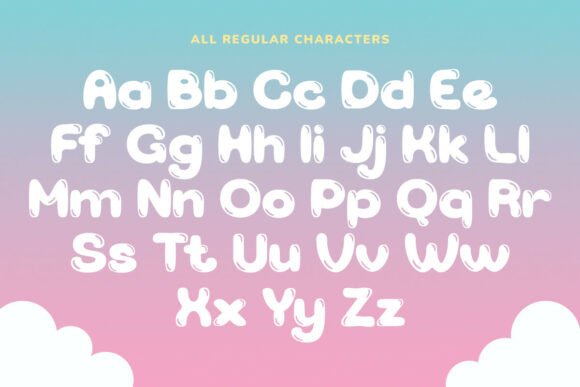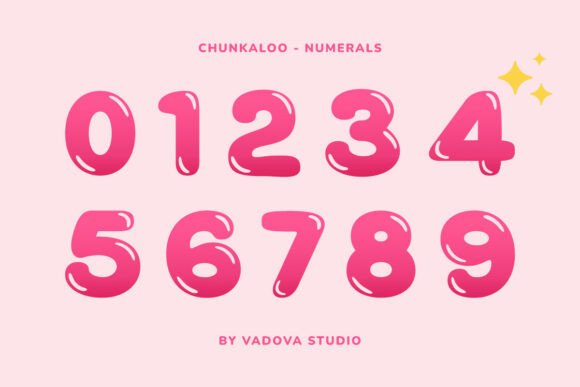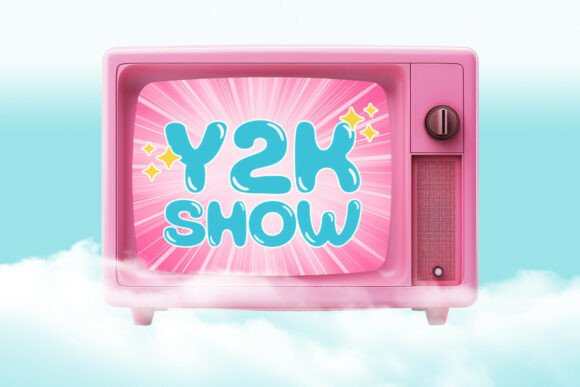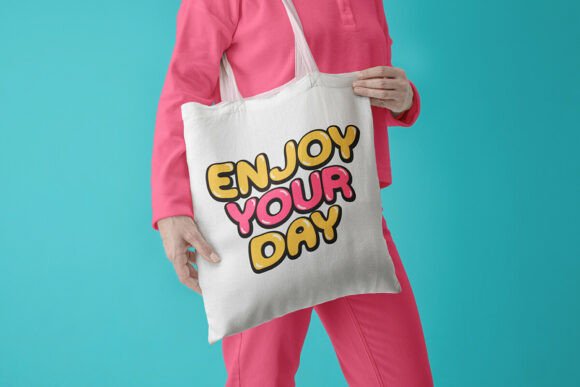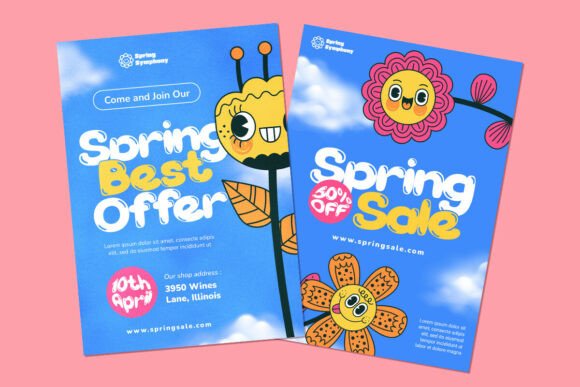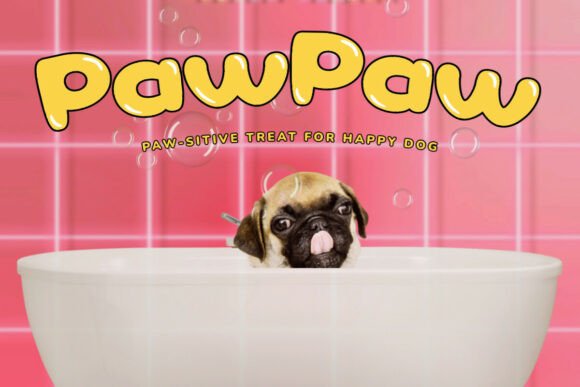
Introduction to Chunkaloo Font
Chunkaloo is a bold display bubble font featuring chunky rounded shapes and soft glossy details that create a cheerful and playful appearance.
The letterforms are thick, smooth, and expressive, giving a friendly visual rhythm that feels fun and approachable Its bubbly structure brings a joyful character that instantly attracts attention in display compositions.